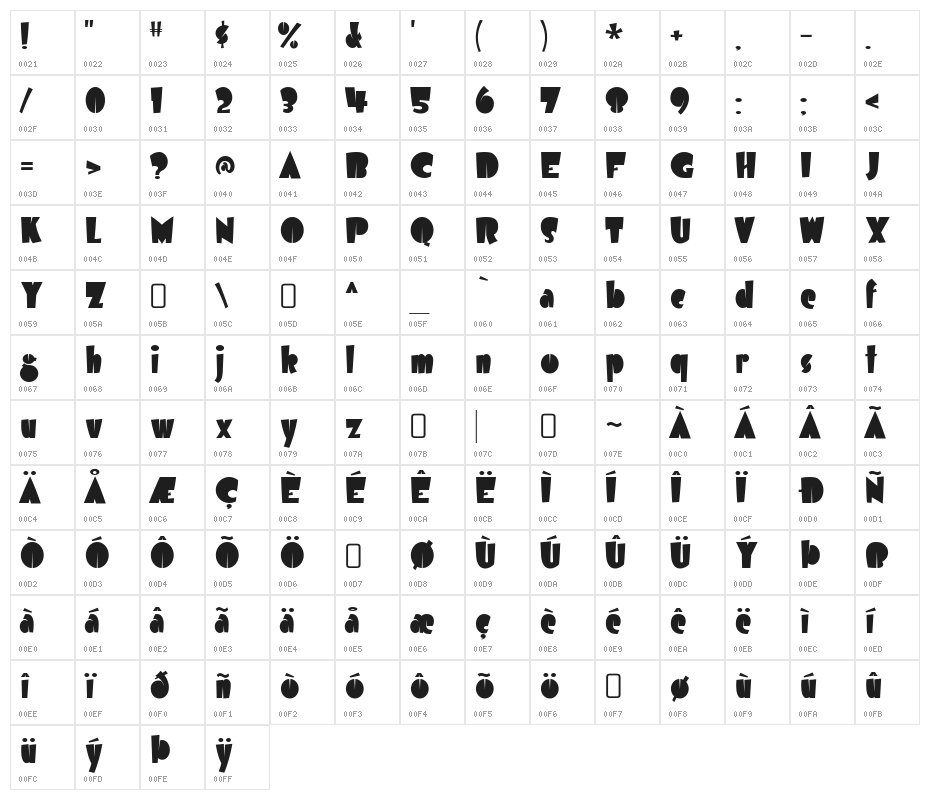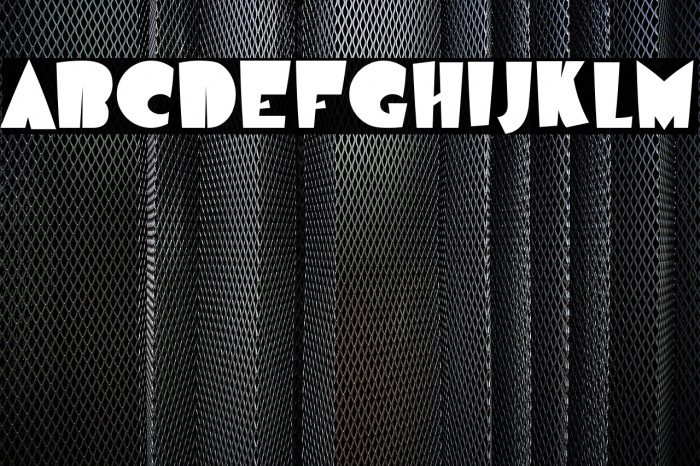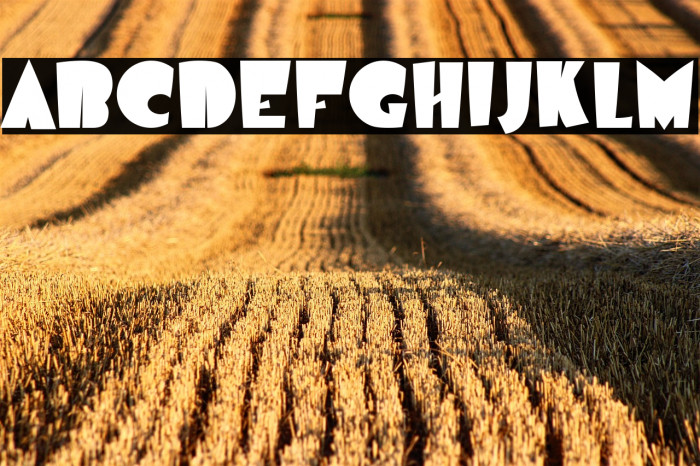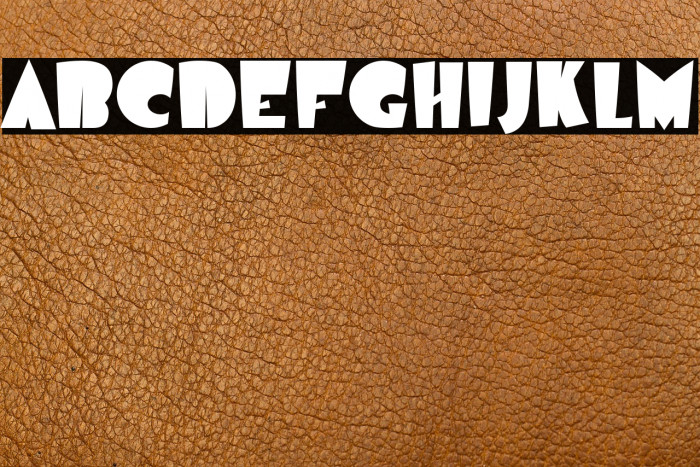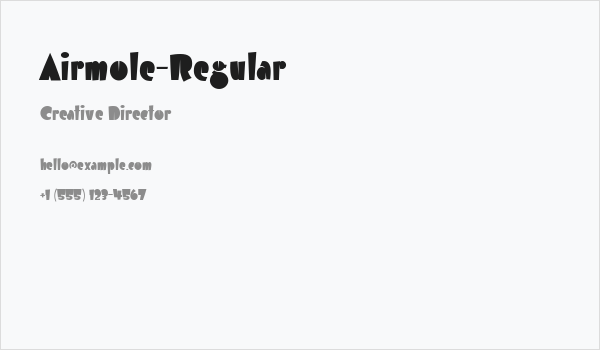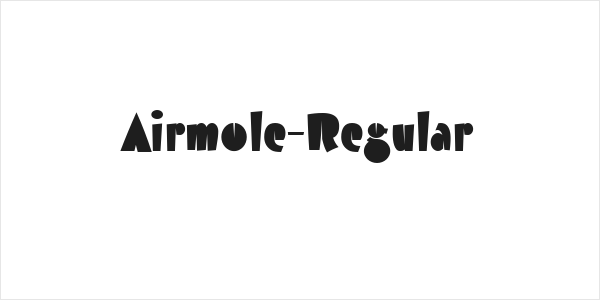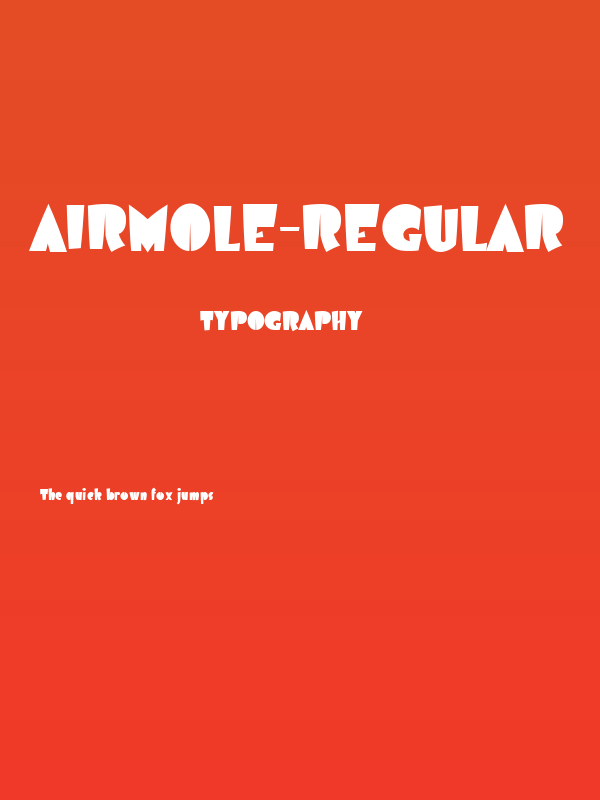
Airmole-Regular Font
Airmole-Regular Description
This font features a bold and playful design with exaggerated curves and angles, giving it a whimsical and artistic appearance. The uppercase letters are particularly striking, with unique shapes that create a sense of movement and energy. The lowercase letters maintain this playful style, offering a cohesive look across the alphabet. Numbers and special characters are equally bold, ensuring consistency throughout. This font's distinct style makes it stand out, perfect for creative projects that require a touch of fun and flair.
| Overall Style | Playful, Artistic |
| Use Case | Headlines, Posters, Branding |
| Proposed Projects | Ideal for children's books, playful branding, posters, and any project needing a whimsical touch. |